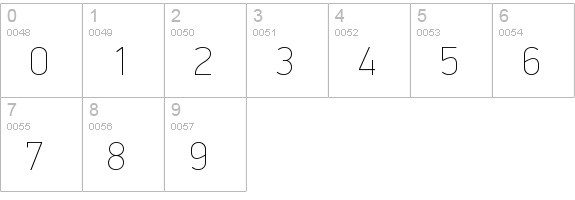
PFDinDisplayPro-ExtraThin is a sleek and modern font that exudes elegance and sophistication. With its ultra-thin strokes and clean lines, this typeface is perfect for creating a refined and minimalist look in your designs. Whether you are working on a branding project, editorial design, or any other creative endeavor, PFDinDisplayPro-ExtraThin will add a touch of class and sophistication. What's even better is that this exquisite font is available for free download at FontsMarket.com. So you can easily access this high-quality typeface without any cost. Don't miss out on the opportunity to elevate your designs with PFDinDisplayPro-ExtraThin and make a lasting impression on your audience. Download it now and unleash your creativity!